Retro Fonts
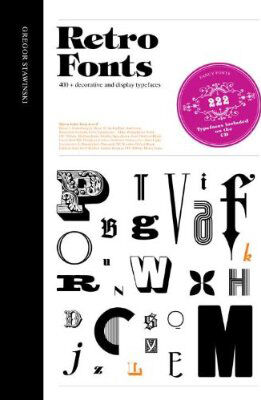
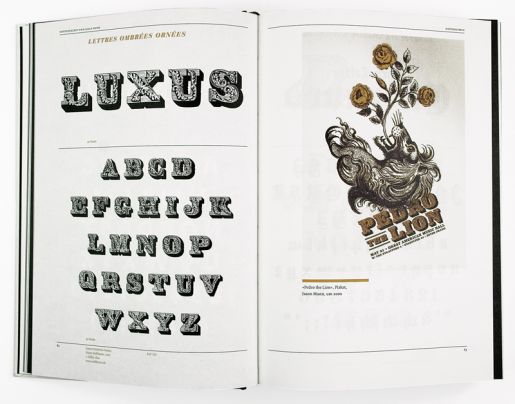
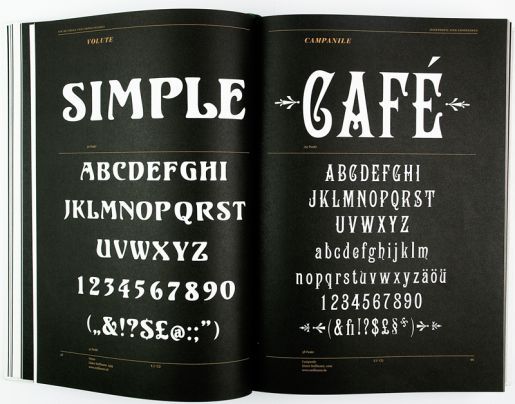
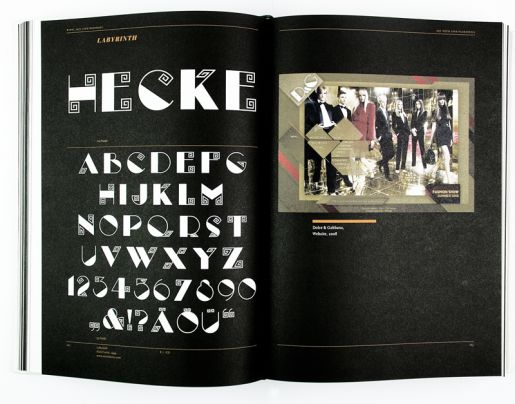
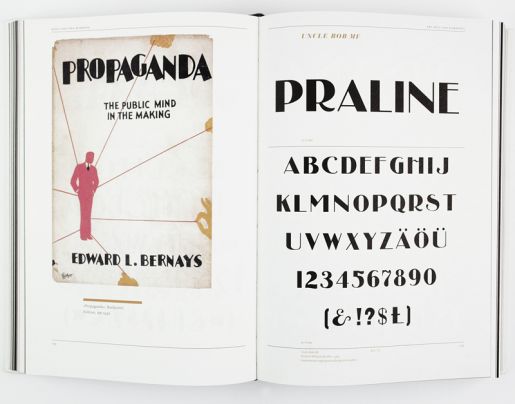
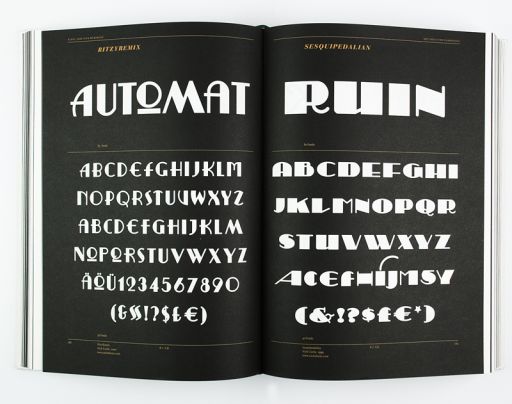
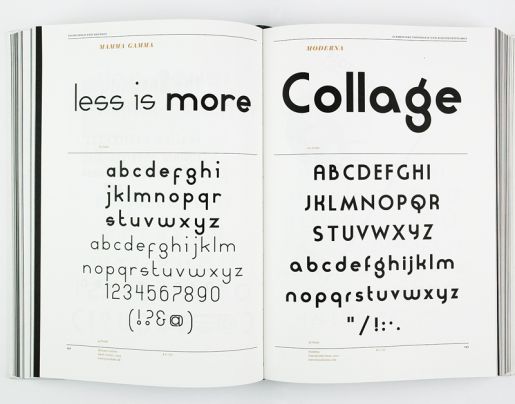
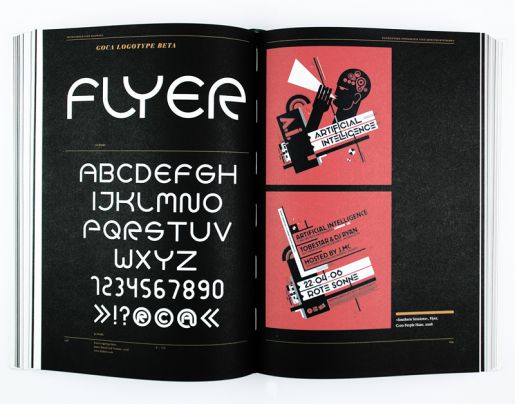
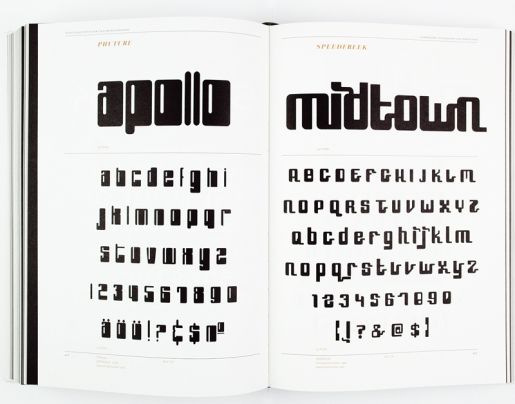
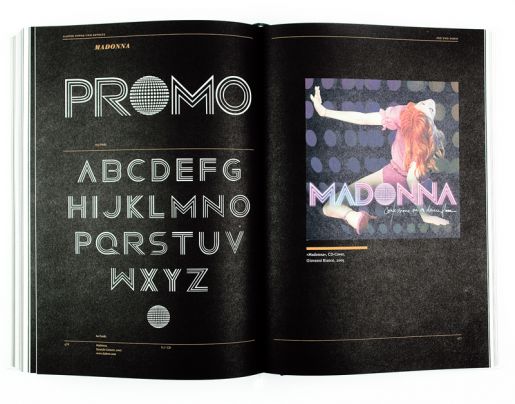
Retro Fonts is a fantastic compilation of over 400 of the best retro fonts from 1830 to the end of the 20th century. The fonts are presented in the style of old type specimen books as alphabets with sample words/phrases, shown opposite classic examples of the fonts in use in their historical context.
Arranged chronologically into eight sections representing different stylistic eras, each with an introduction discussing the typography of that era, the fonts range from Art Deco, Bauhaus and Swiss through to Sixties, Disco and Punk. Featuring both familiar fonts and lesser-known examples ripe for rediscovery, this is a unique source of inspiration for all graphic designers and typographers. The accompanying CD contains 222 copyright-free fonts.